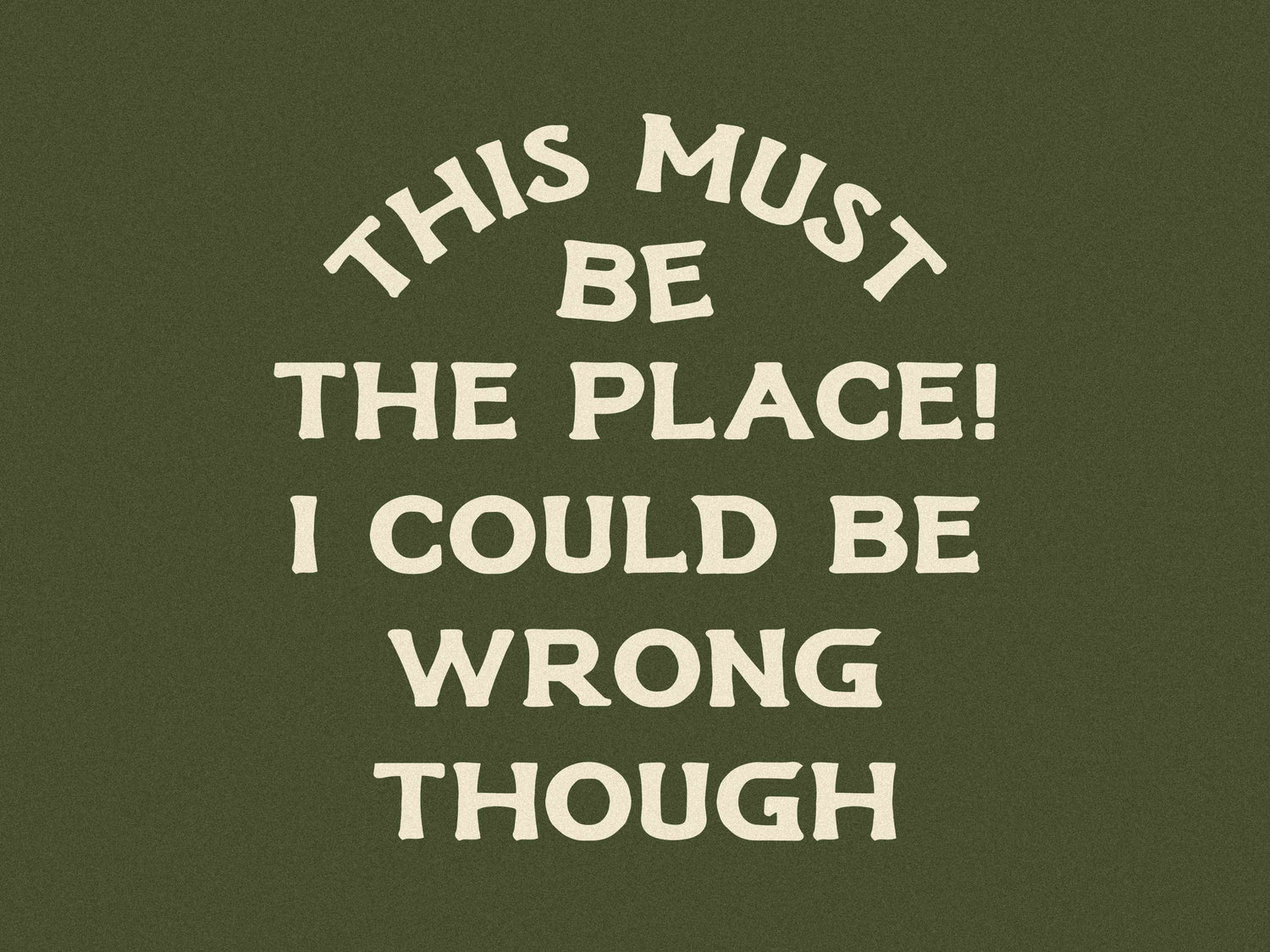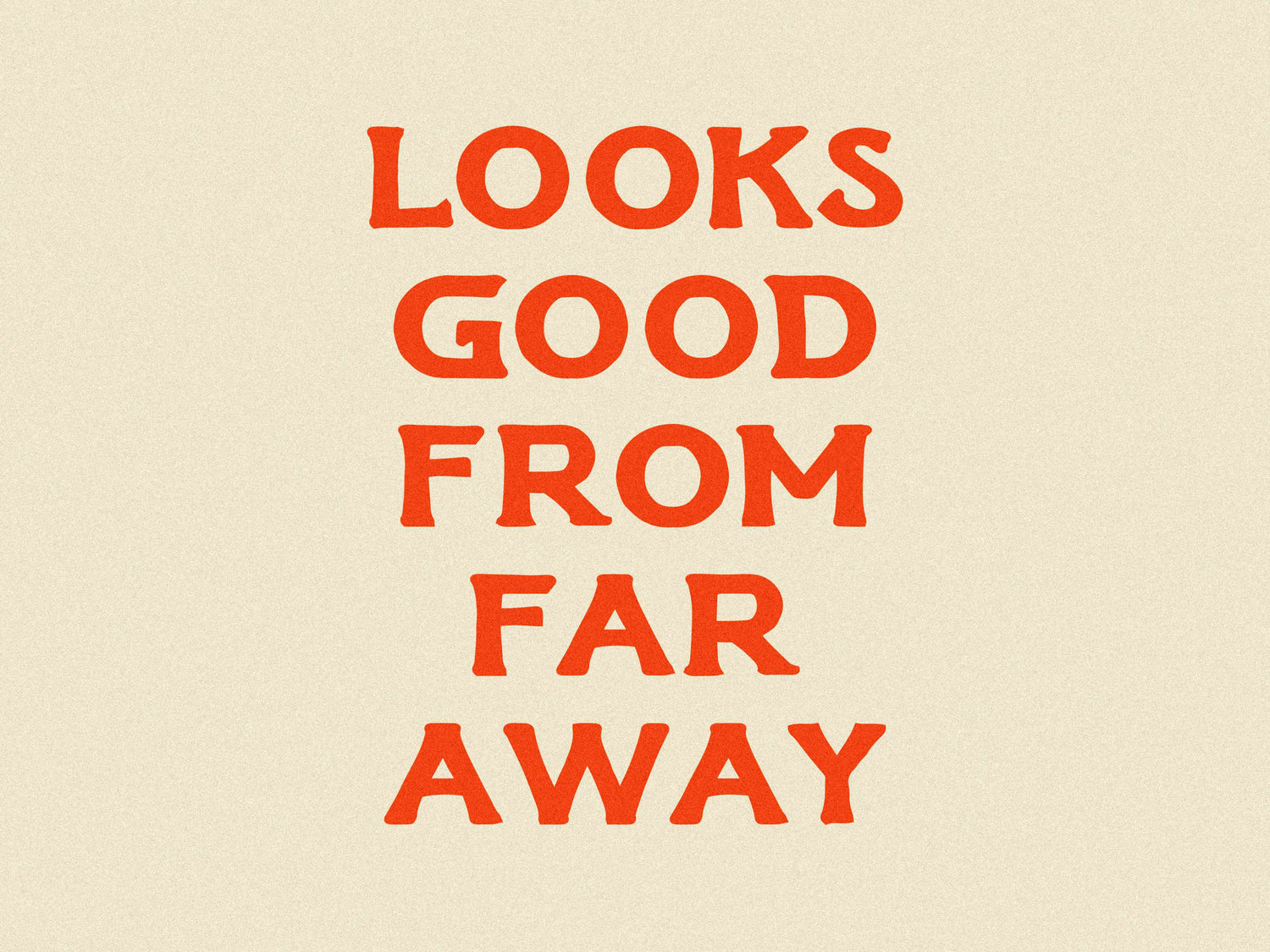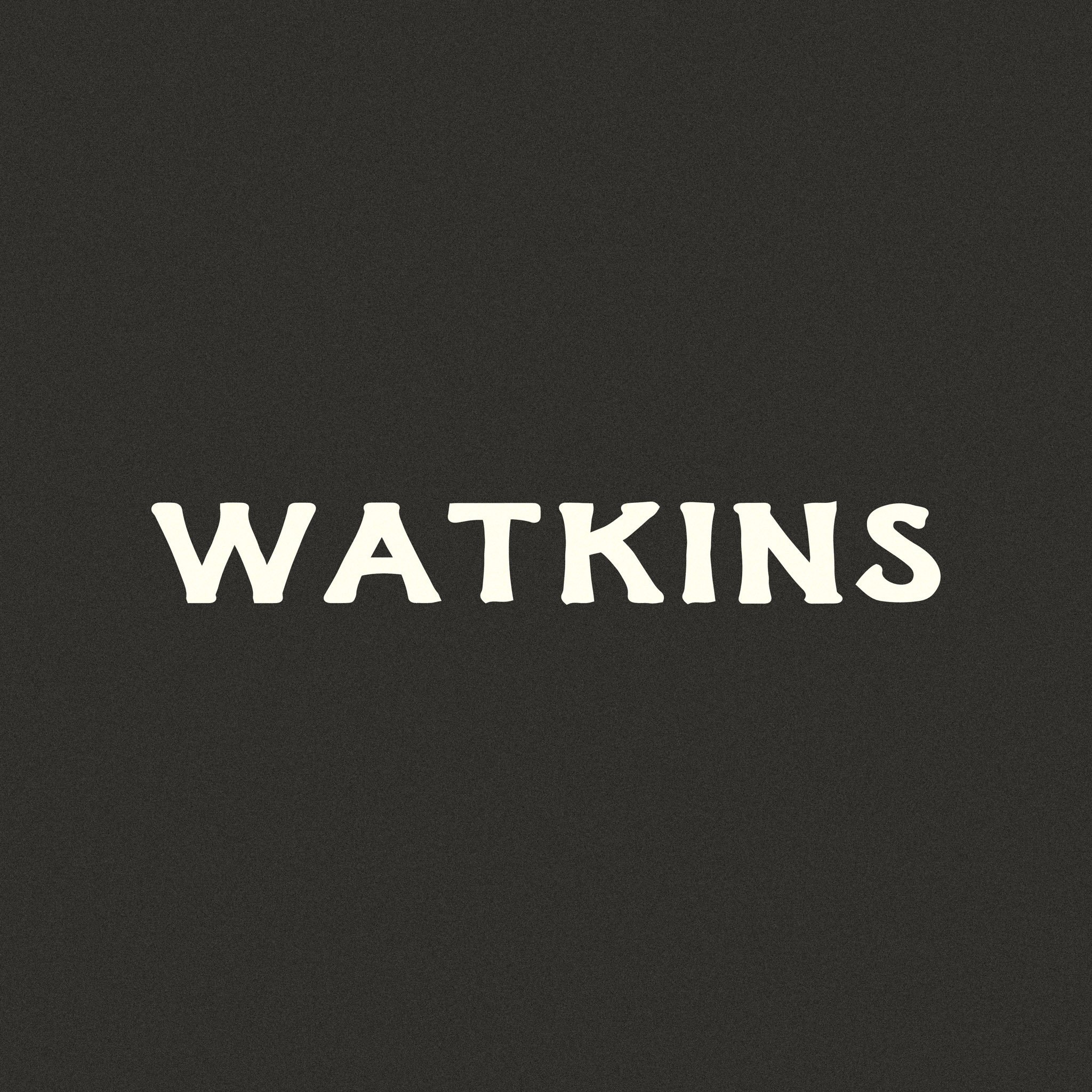
Watkins
A typeface that plays nice with tradition — but still does its own thing.
It’s bold, clean, and rooted in traditional forms, but with enough softness to feel modern. If you need a typeface that looks reliable (even when your design brief isn’t), Watkins is probably it.